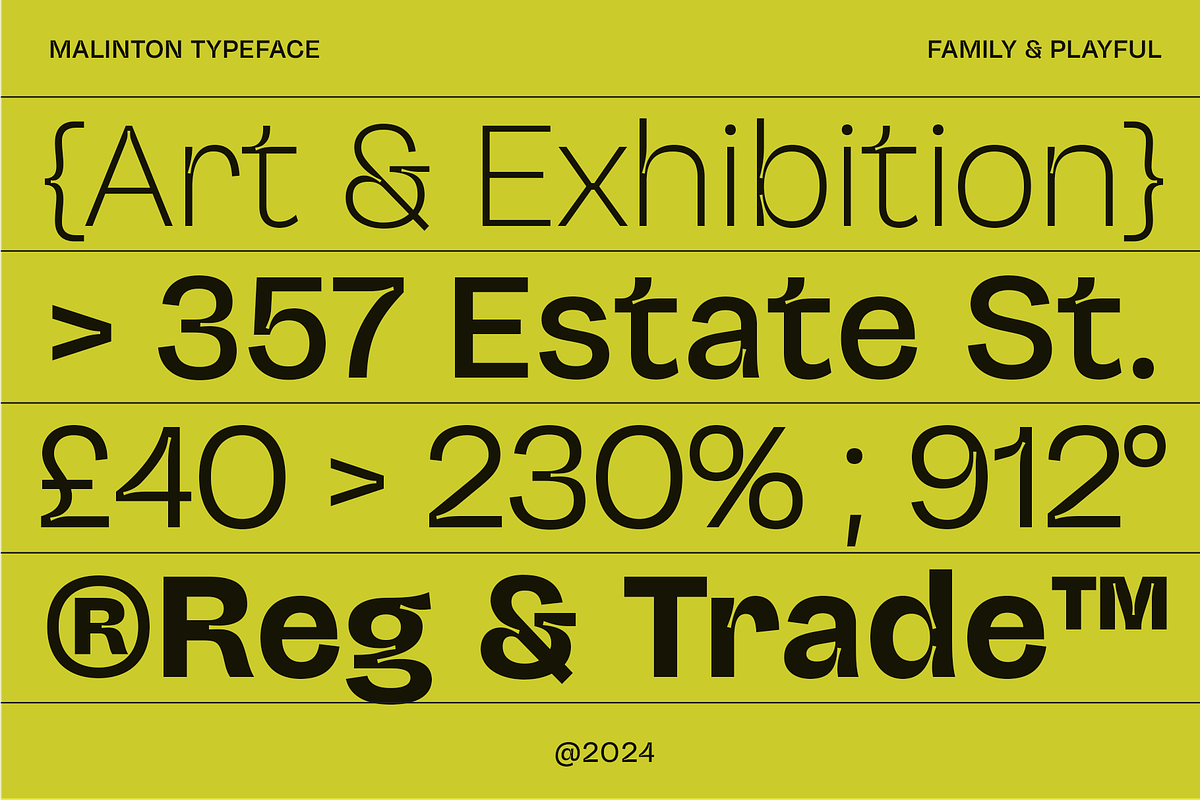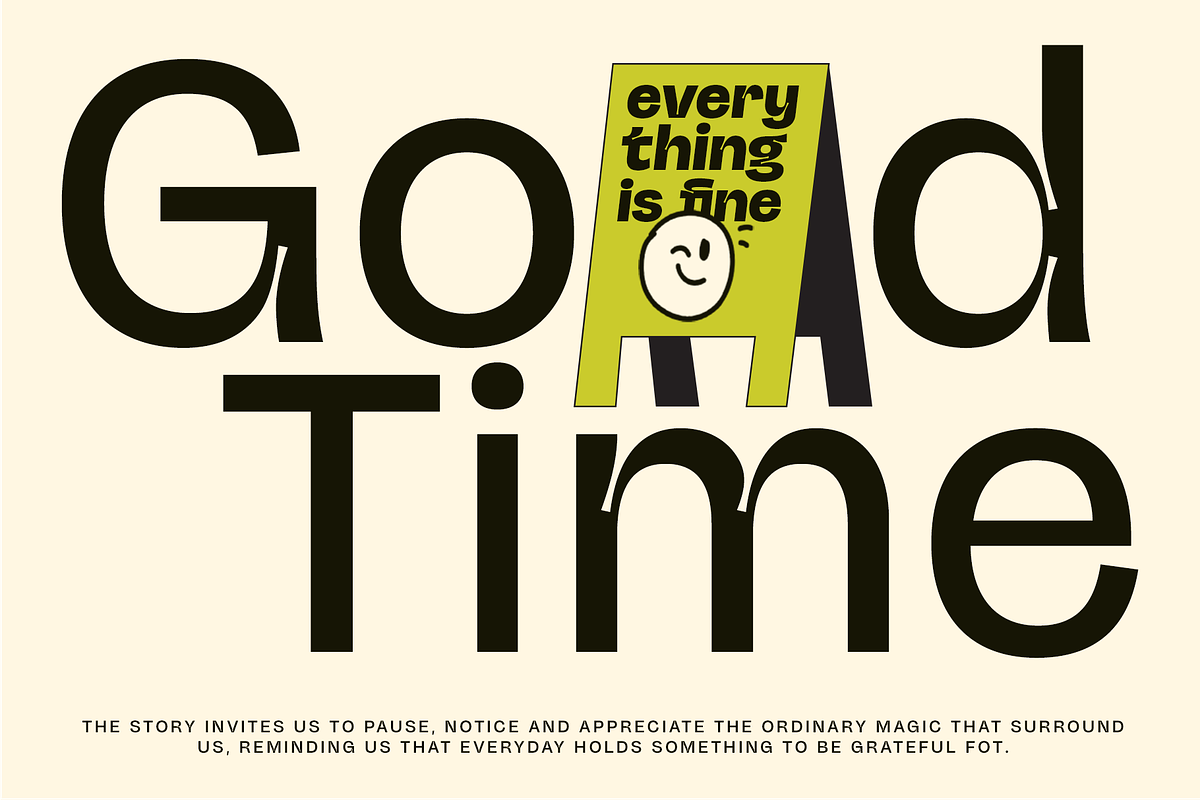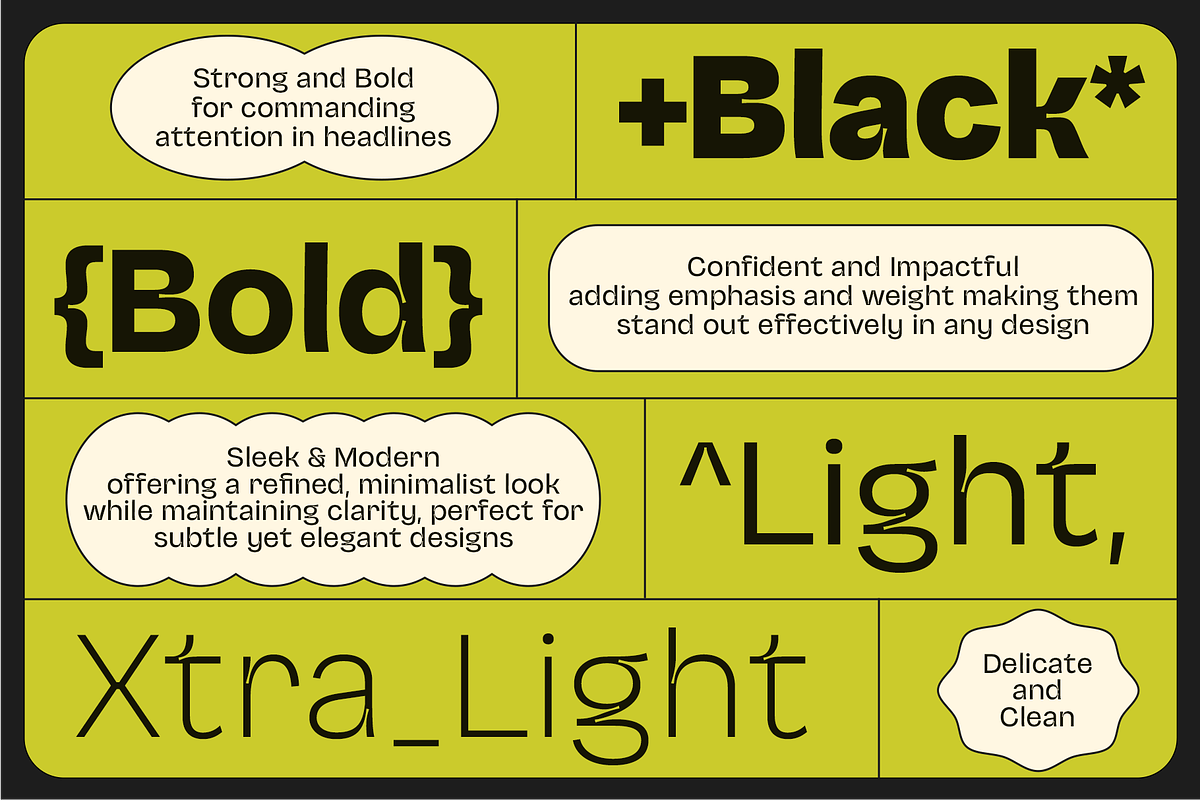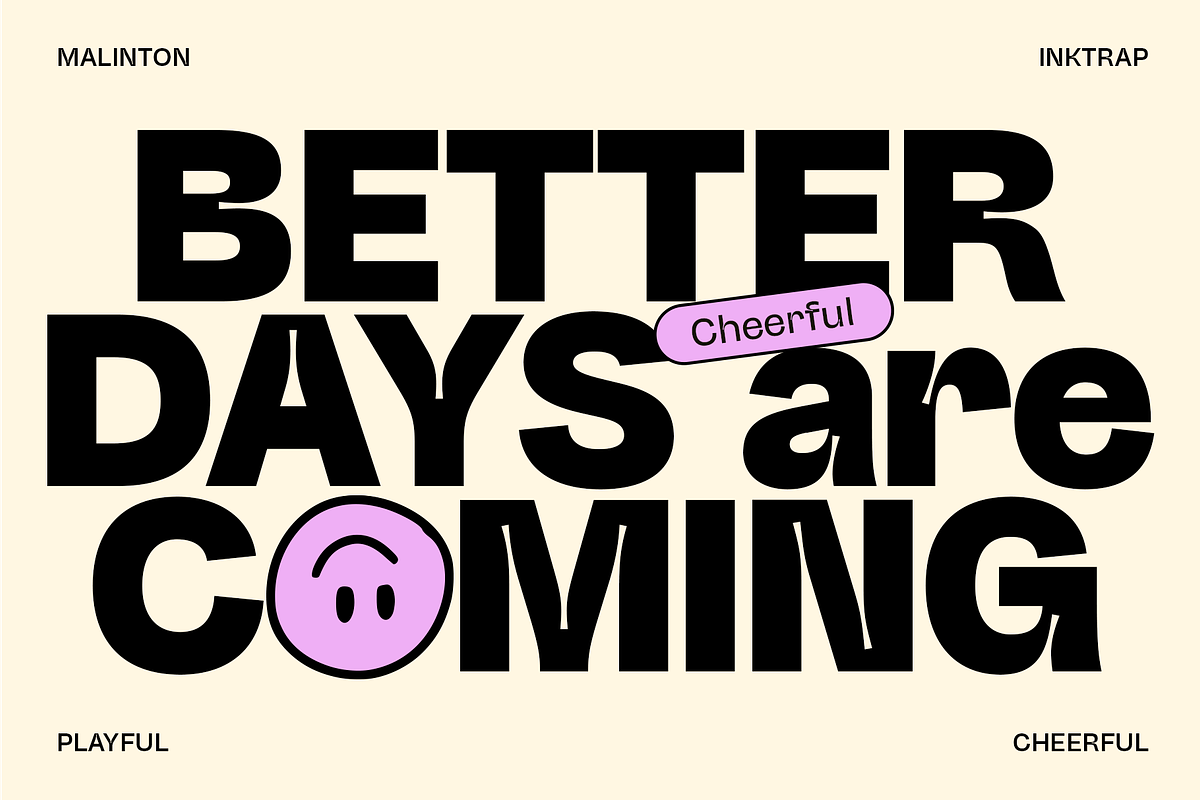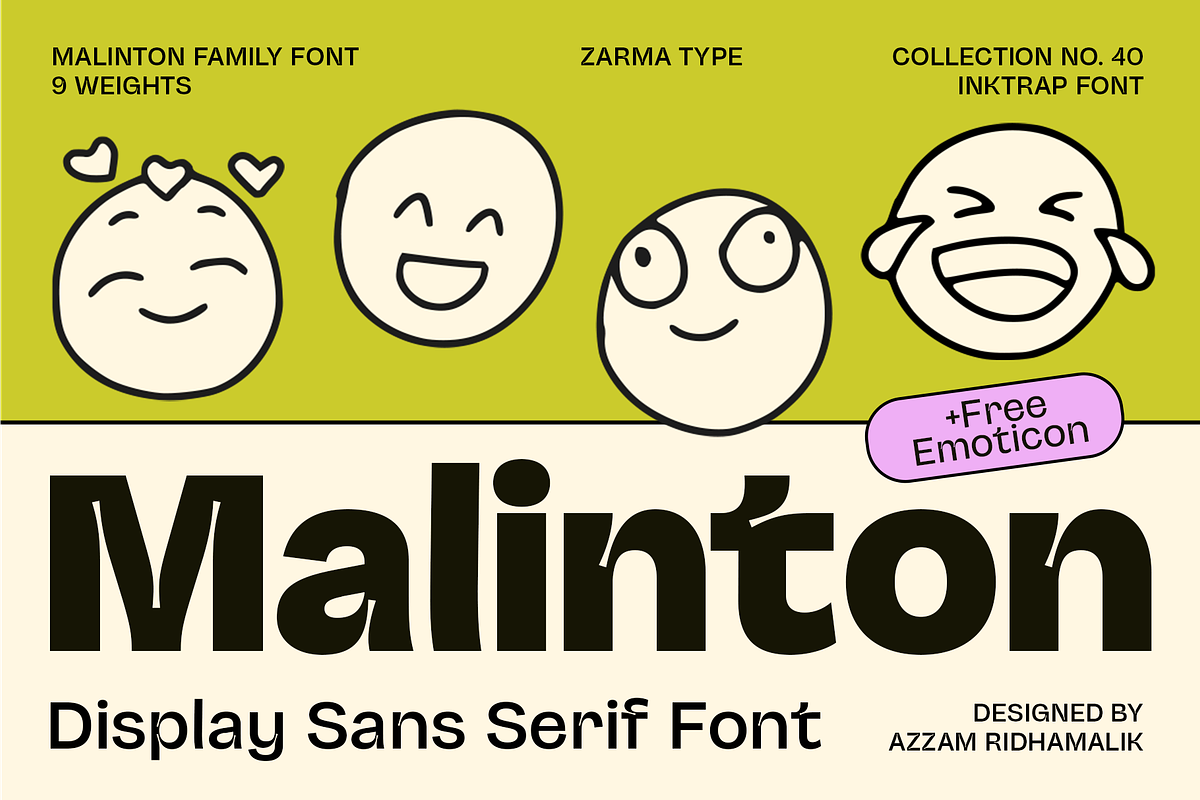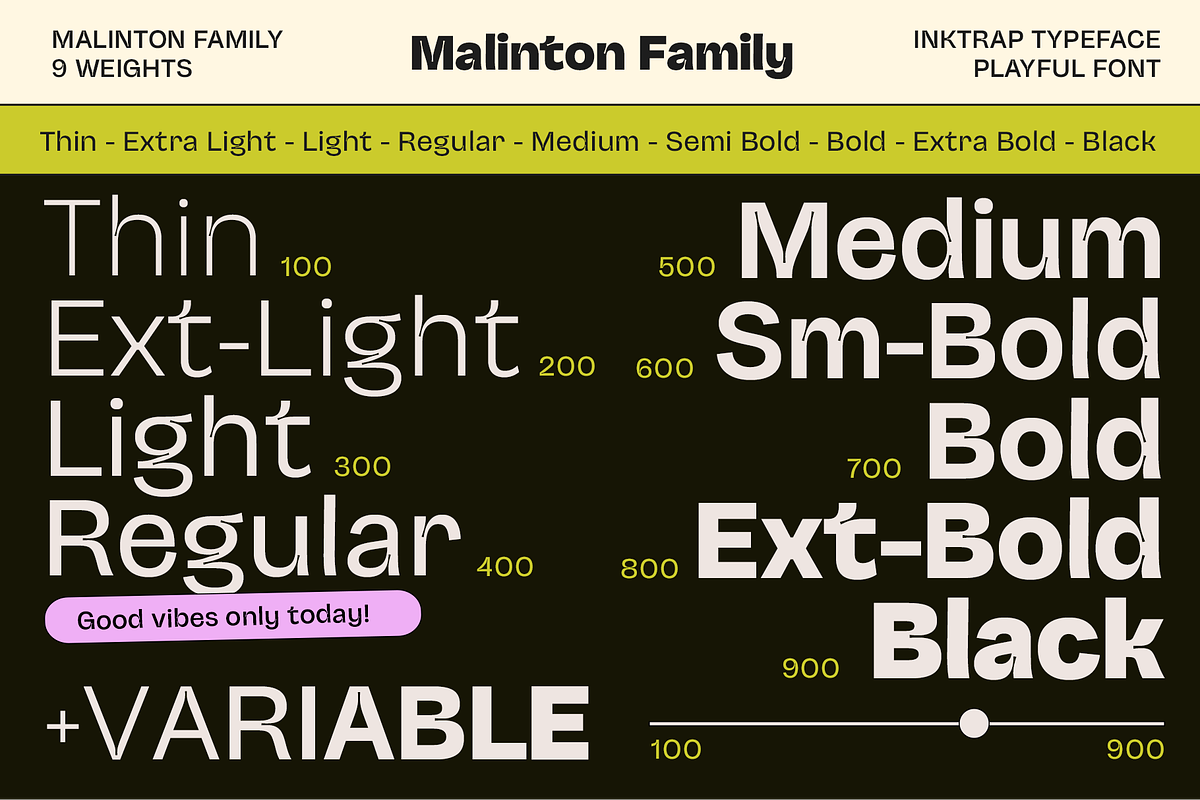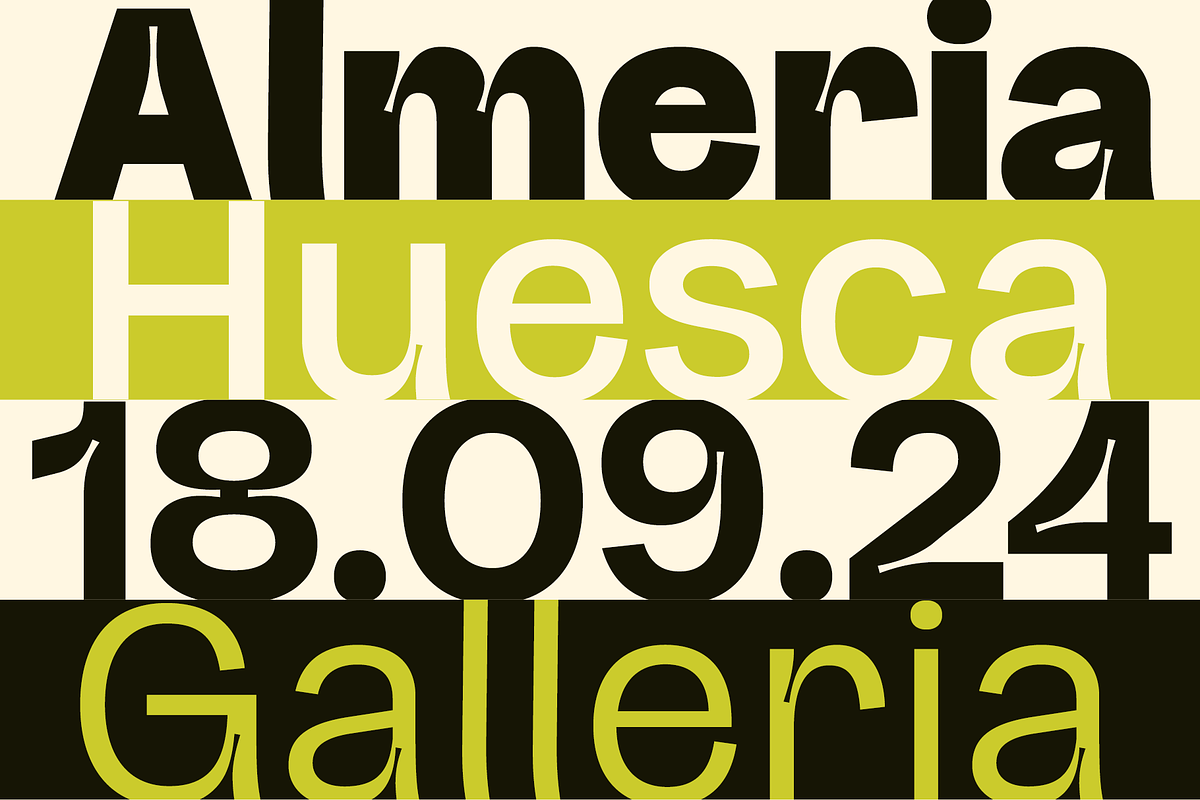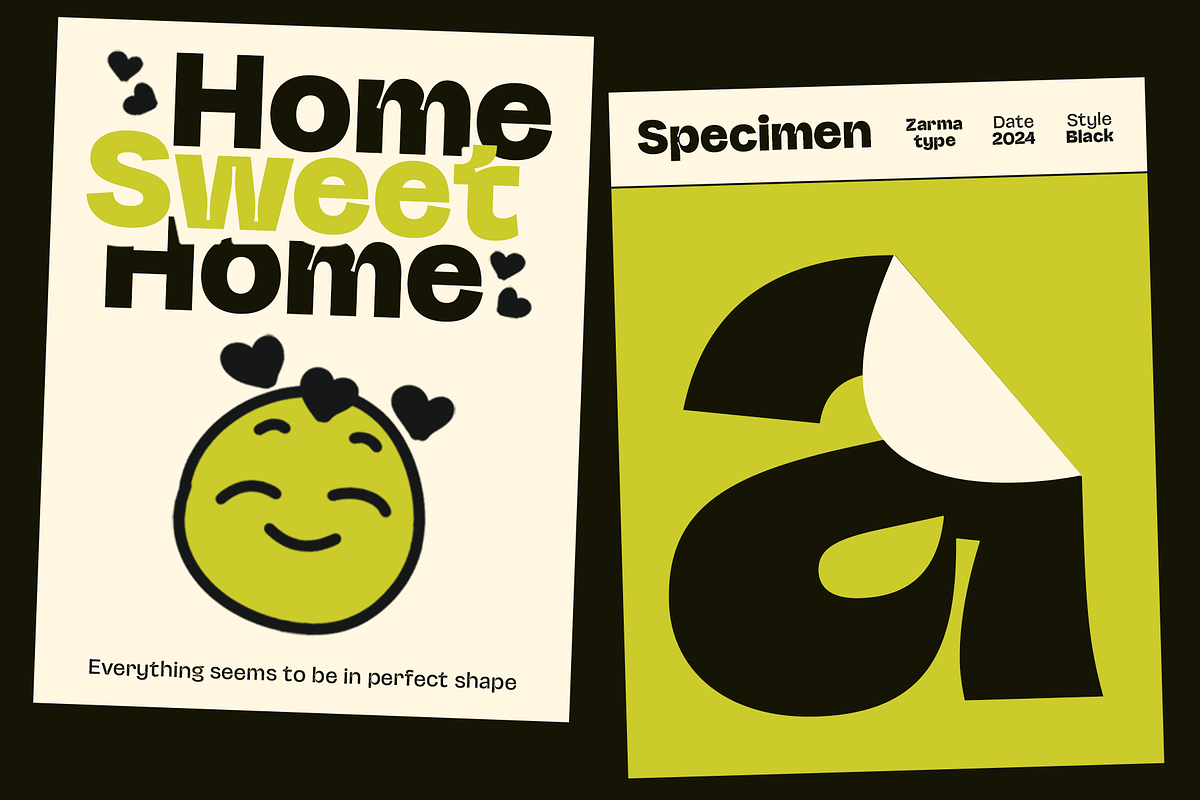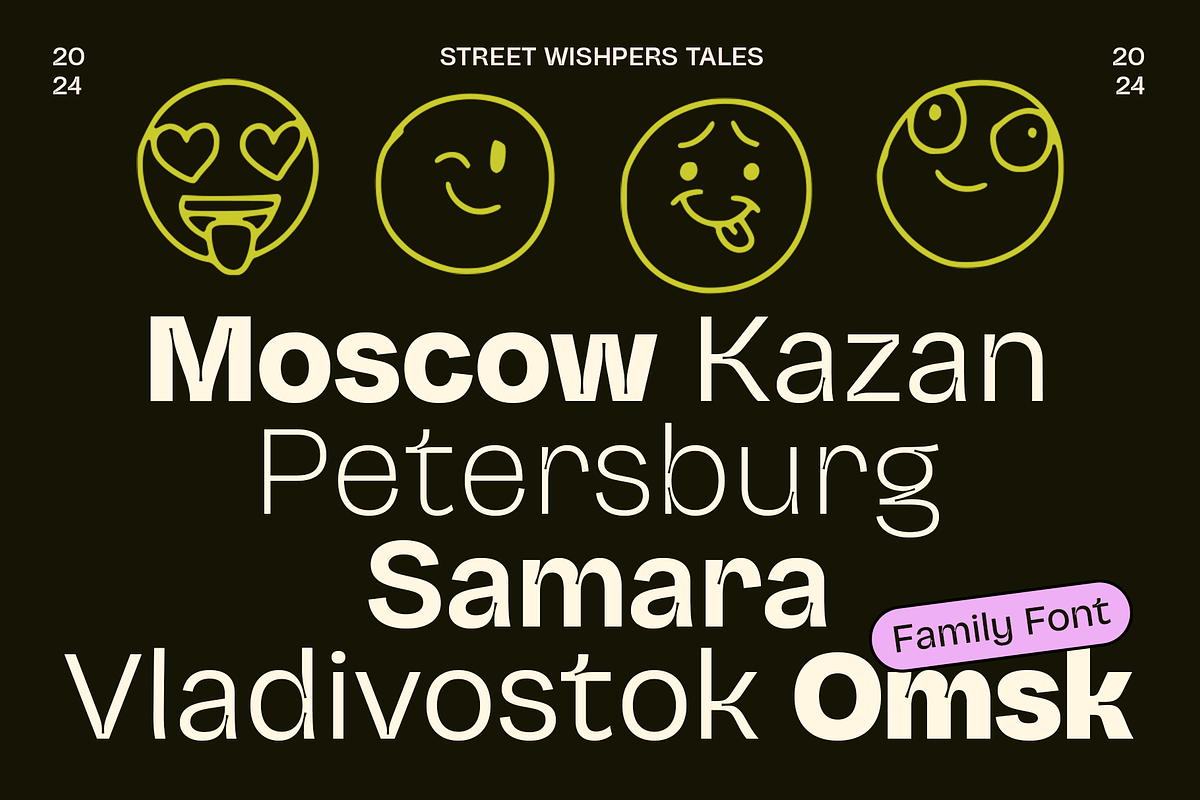
Malinton - Display Sans Font Family
Malinton Display Sans Font Family is more than just a font - it's a personality booster for your designs! This versatile display sans serif comes with 9 carefully crafted weights from Extra Light to Black, making it perfect for both cheerful headlines and serious statements. Featuring unique inktraps, playful emoticon alternatives, and comprehensive character support, Malinton brings the perfect blend of professional structure and friendly vibes to your creative projects. Whether you're designing for brands, social media, or editorial content, let Malinton's distinctive character make your message unforgettable.
Packed with OpenType features, variable font technology, and complete language support, this font family is your go-to choice for projects that need to stand out while maintaining readability and professional appeal.
- Uppercase, Lowercase, Numbers, Punctuation
- Opentype Feature
- Extended Latin
- 80+ Language Supported
- Free Emoticon